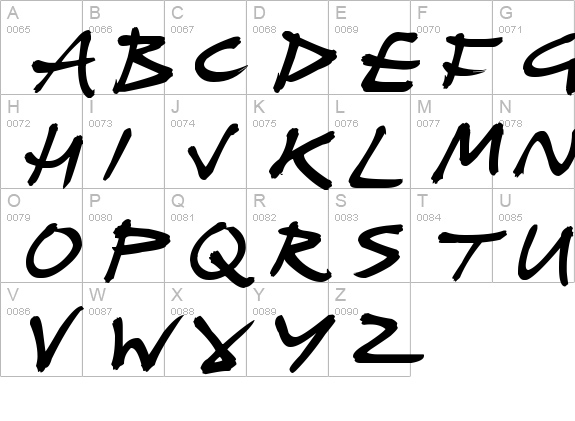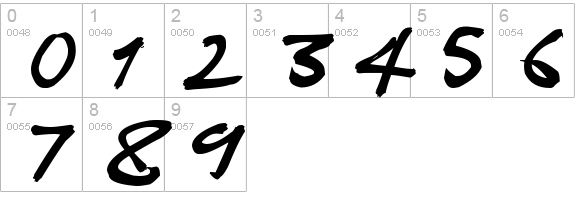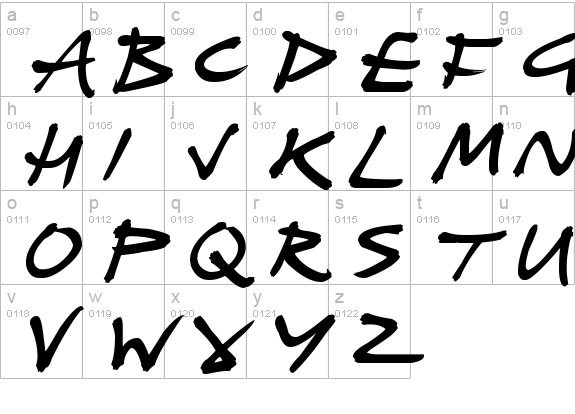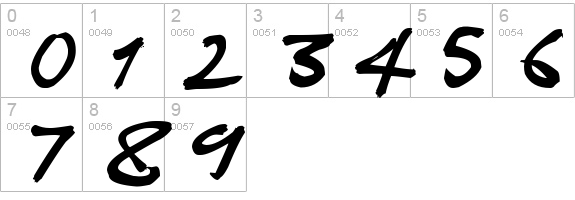
Pirate Plunder Font Details
Pirate Plunder is a free for personal use font in the Script > Brush category, designed by Darrell Flood. It has been downloaded 92 times and is available for Windows, Mac and Linux.
Pirate Plunder font is a bold and adventurous typeface that will transport you to the high seas with its rugged and swashbuckling design. This font is perfect for creating eye-catching headlines, posters, and branding materials that need a touch of pirate charm. With its ornate details and vintage appeal, Pirate Plunder font is sure to make your projects stand out from the crowd.